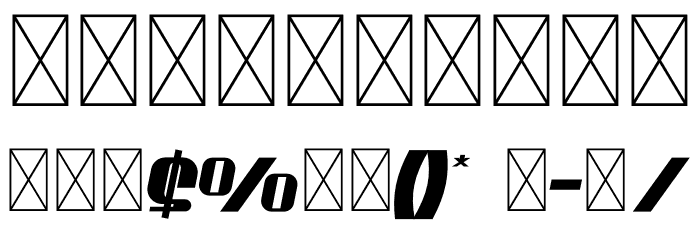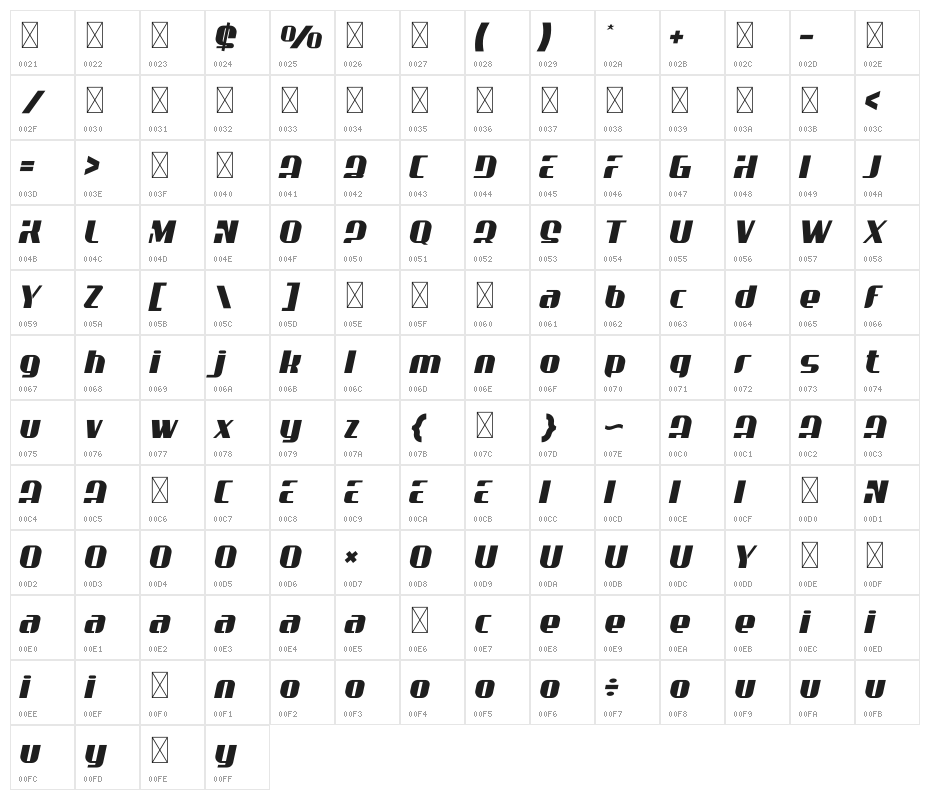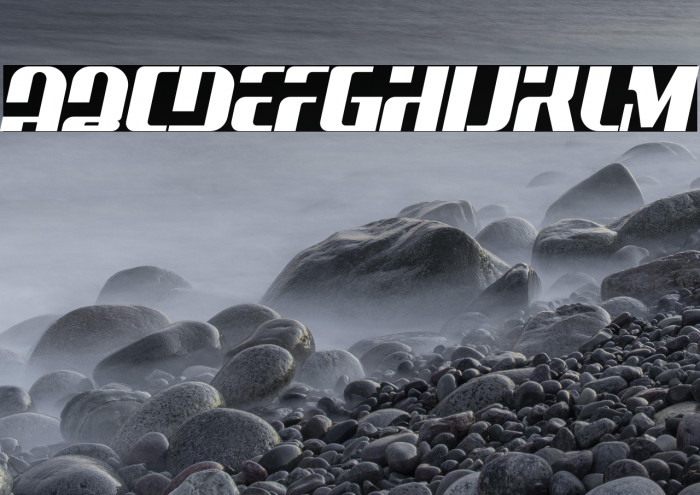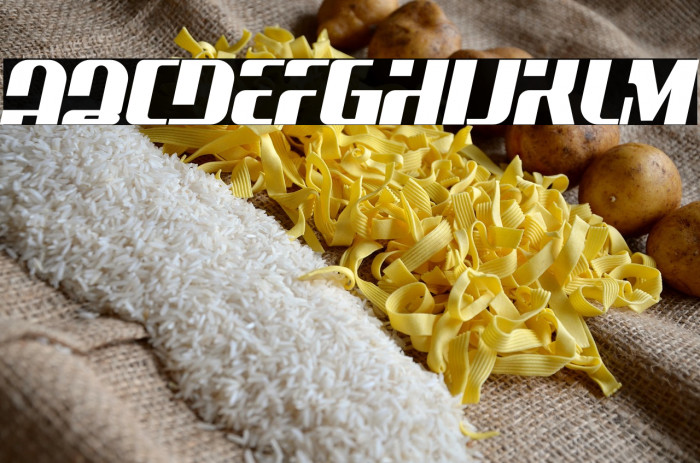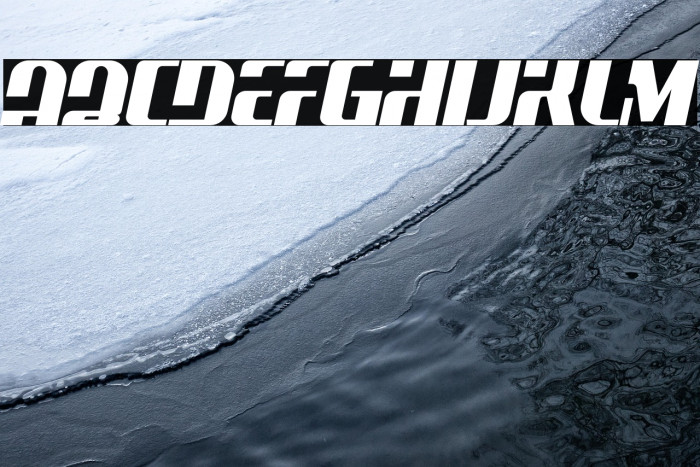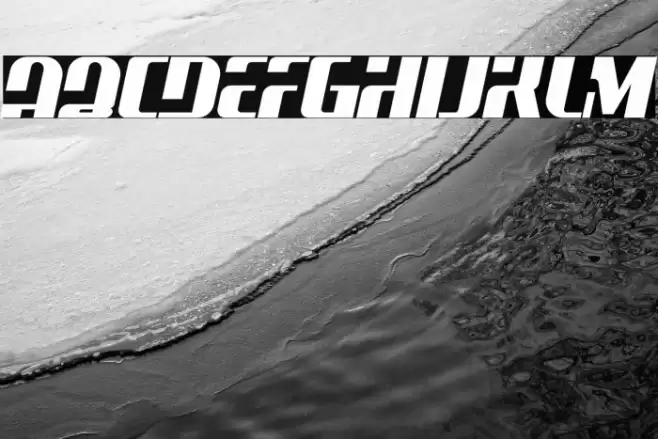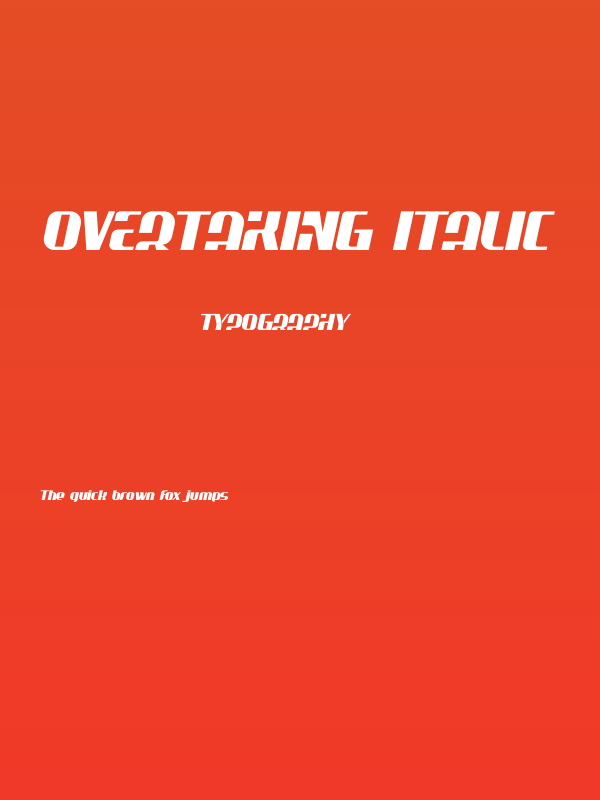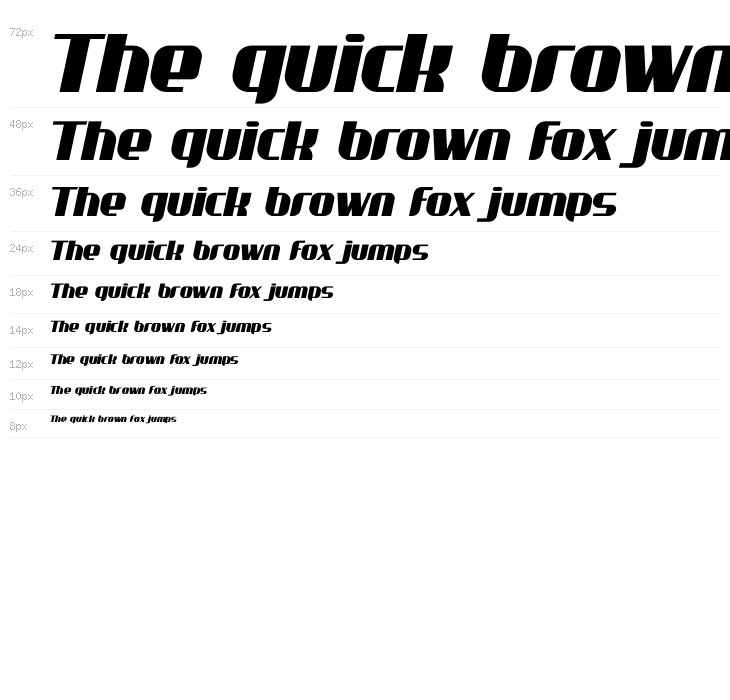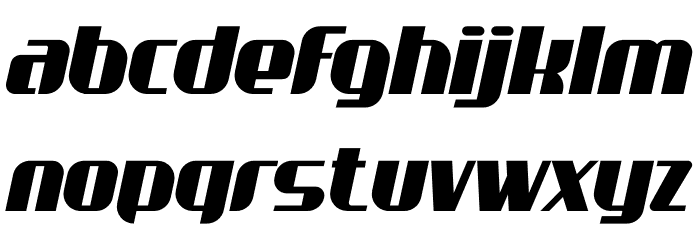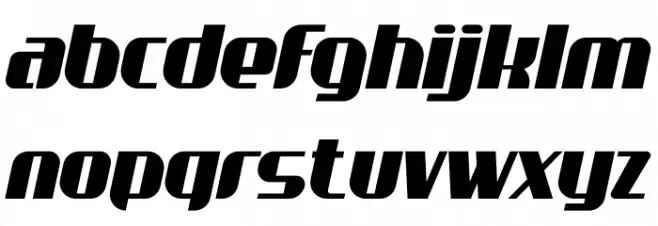
Overtaking Italic Font
Overtaking Italic Description
This font features a bold and dynamic italic style, characterized by its strong geometric shapes and sharp angles. The letters are slanted, giving a sense of motion and speed, which is further emphasized by the thick, consistent strokes. The uppercase and lowercase letters maintain a cohesive design, with a modern and futuristic appearance. The numbers and special characters follow the same stylistic approach, ensuring uniformity across all elements. The font's design is both eye-catching and assertive, making it suitable for projects that require a bold statement.
| Proposed Projects | Ideal for sports branding, automotive advertisements, and dynamic logo designs. |